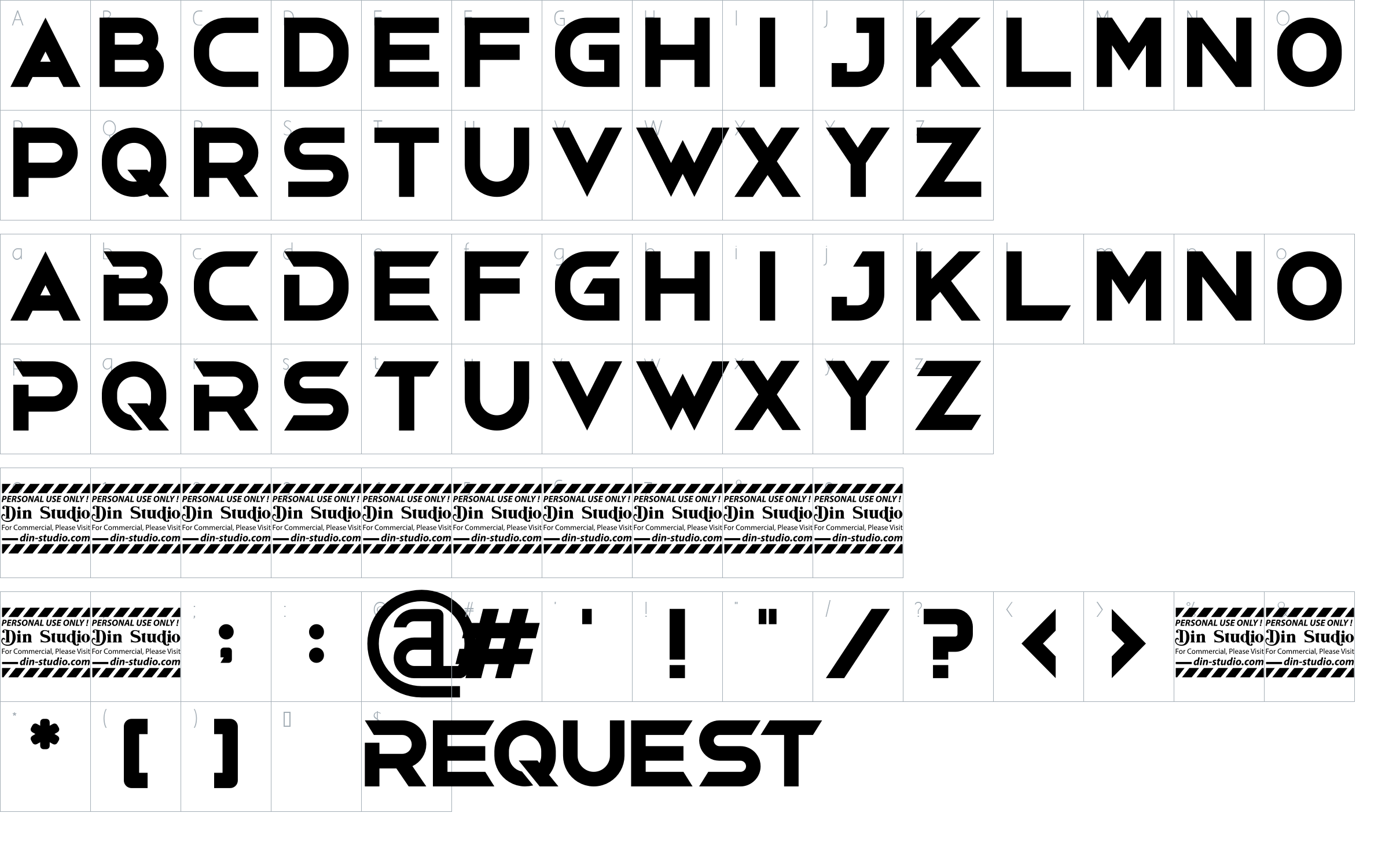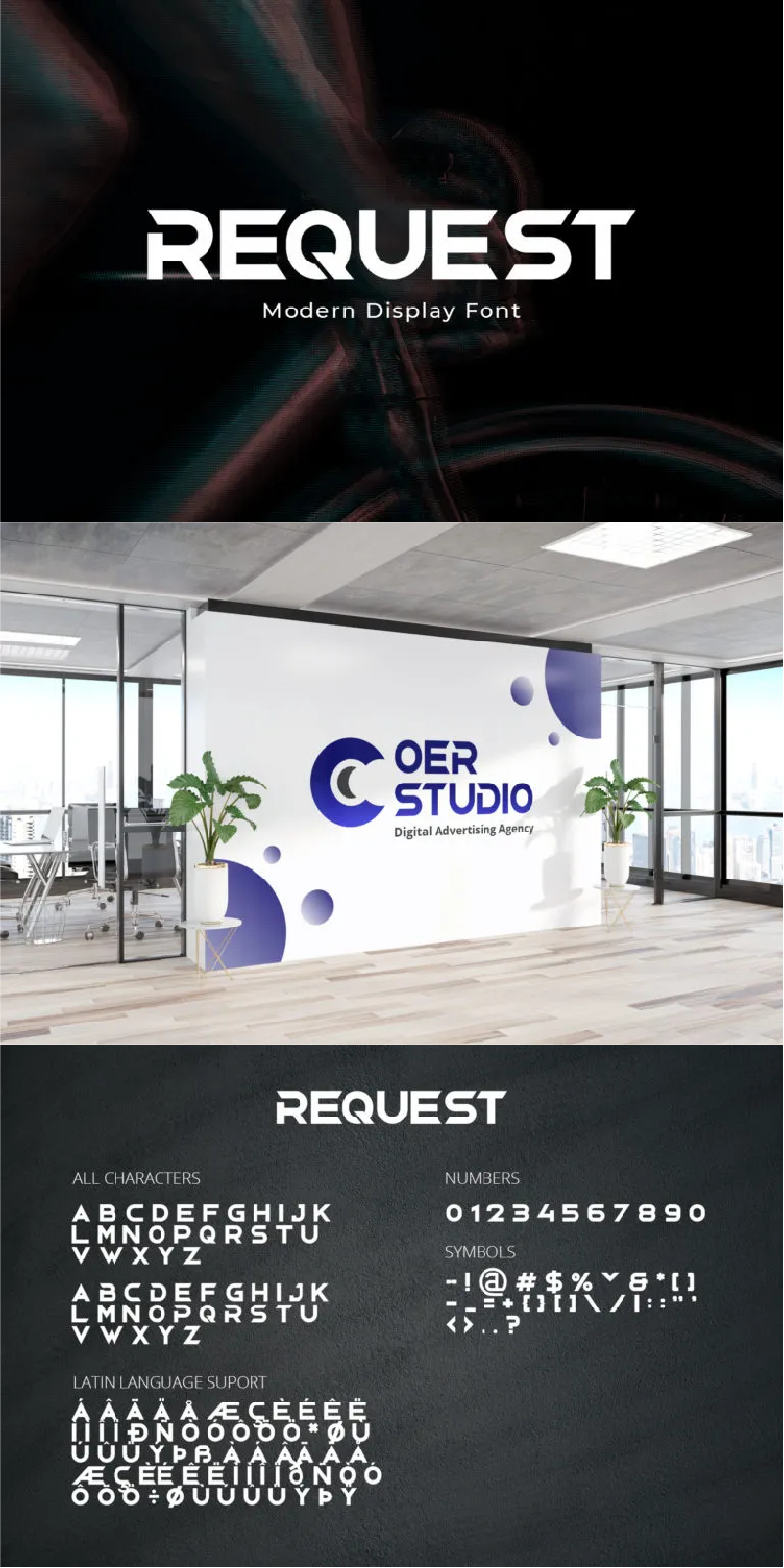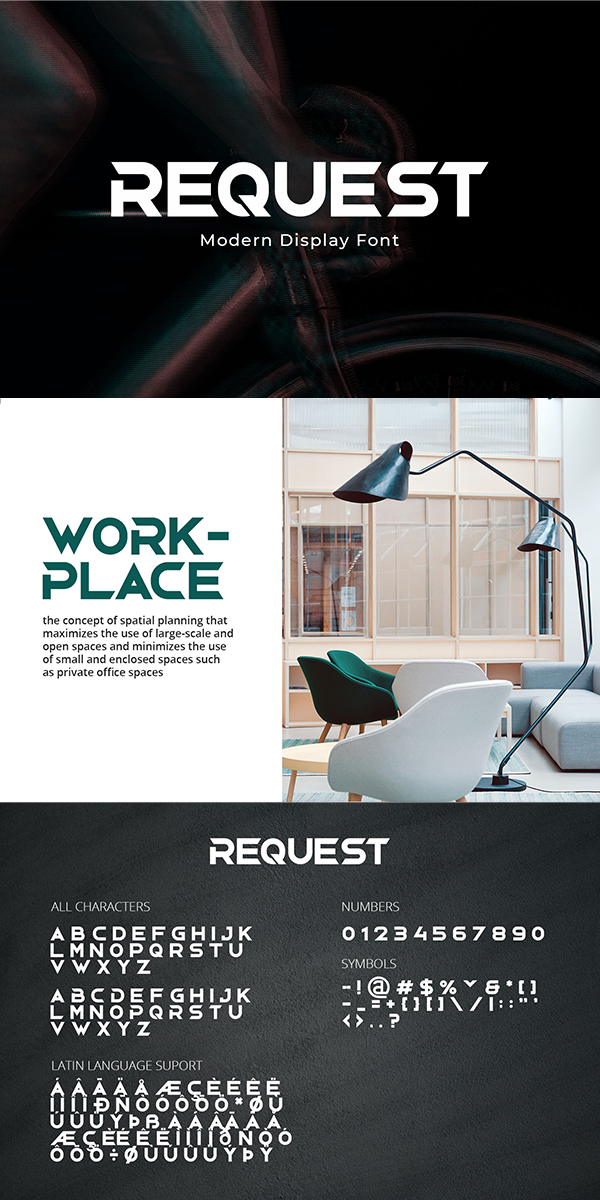
REQUEST Font
About REQUEST
Request is a bold and authentic display font. It celebrates abstract shapes in all their eclectic beauty. This font will look truly outstanding in a wide range of contexts. See the previews above to get some inspiration on how you can use them. Happy Designing!